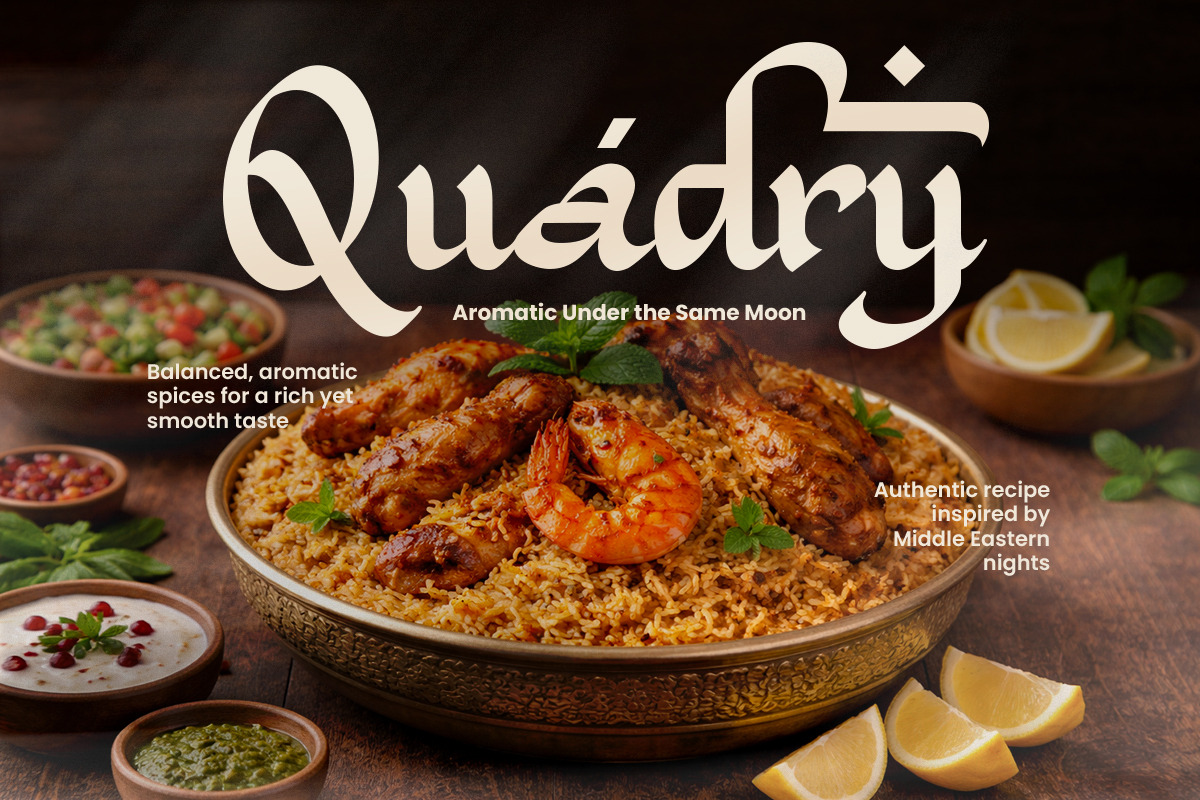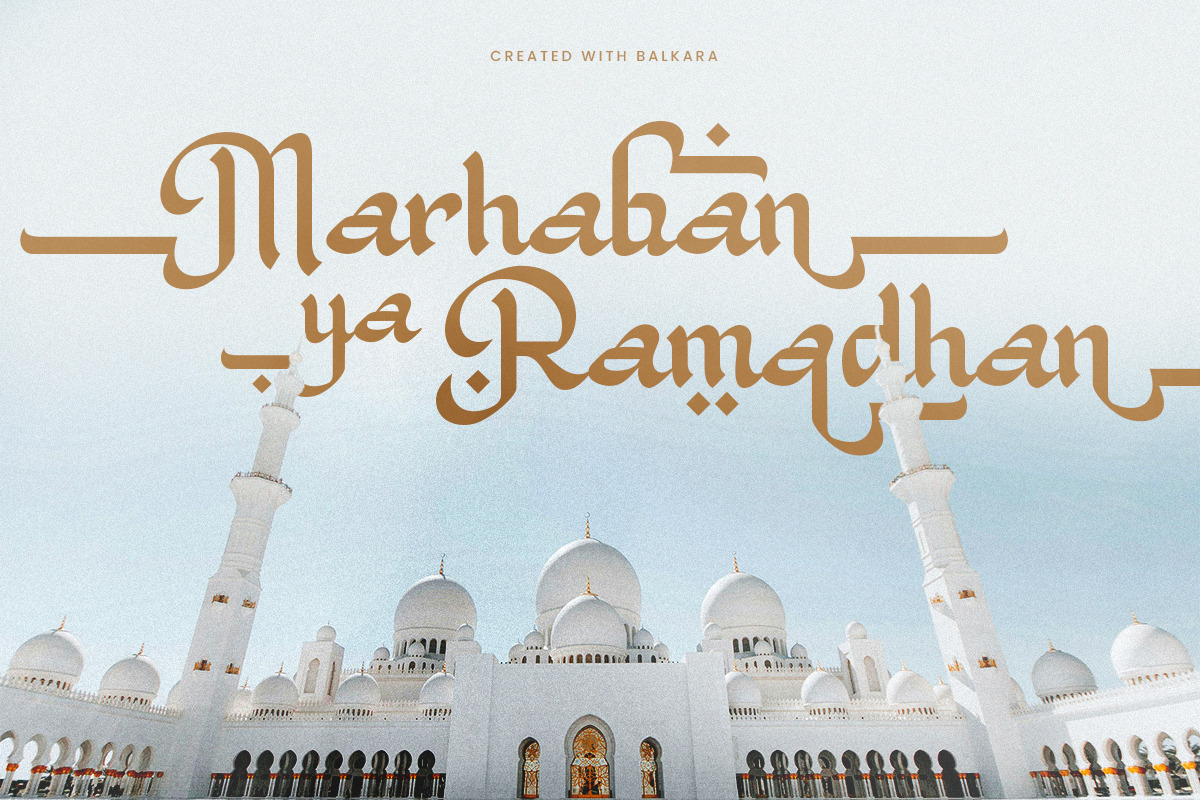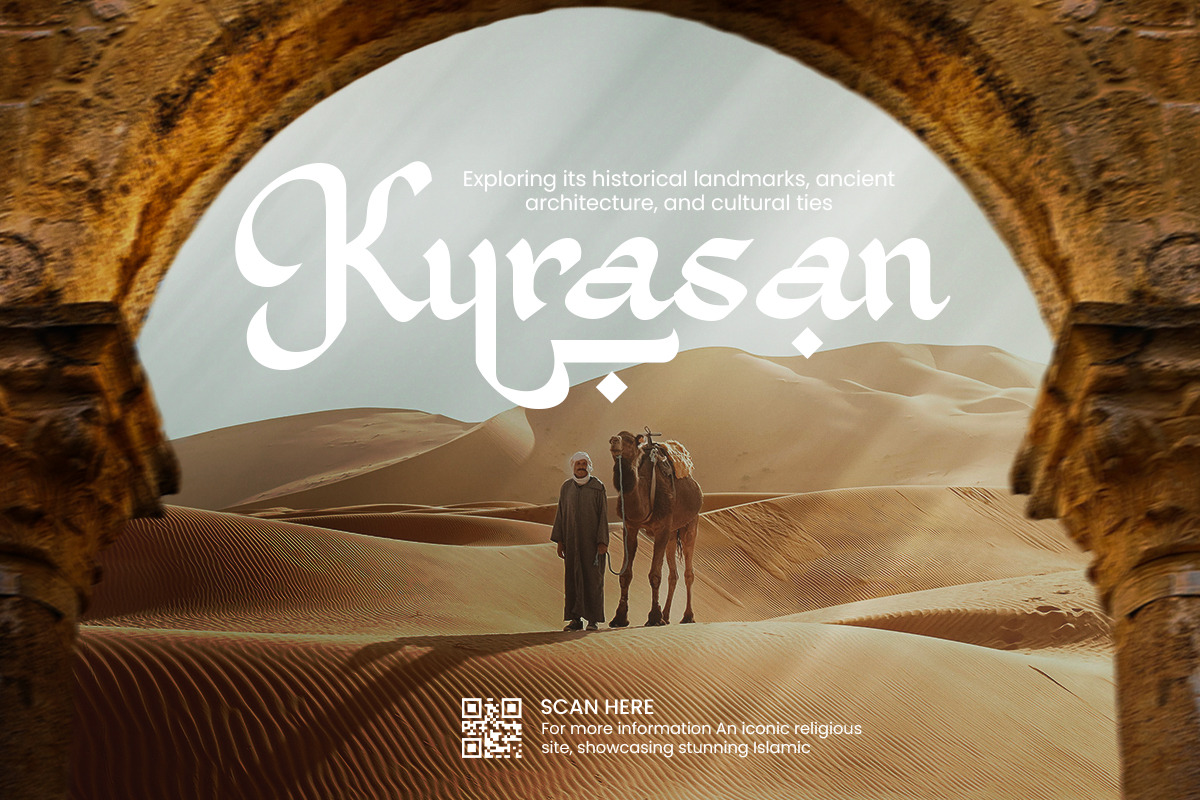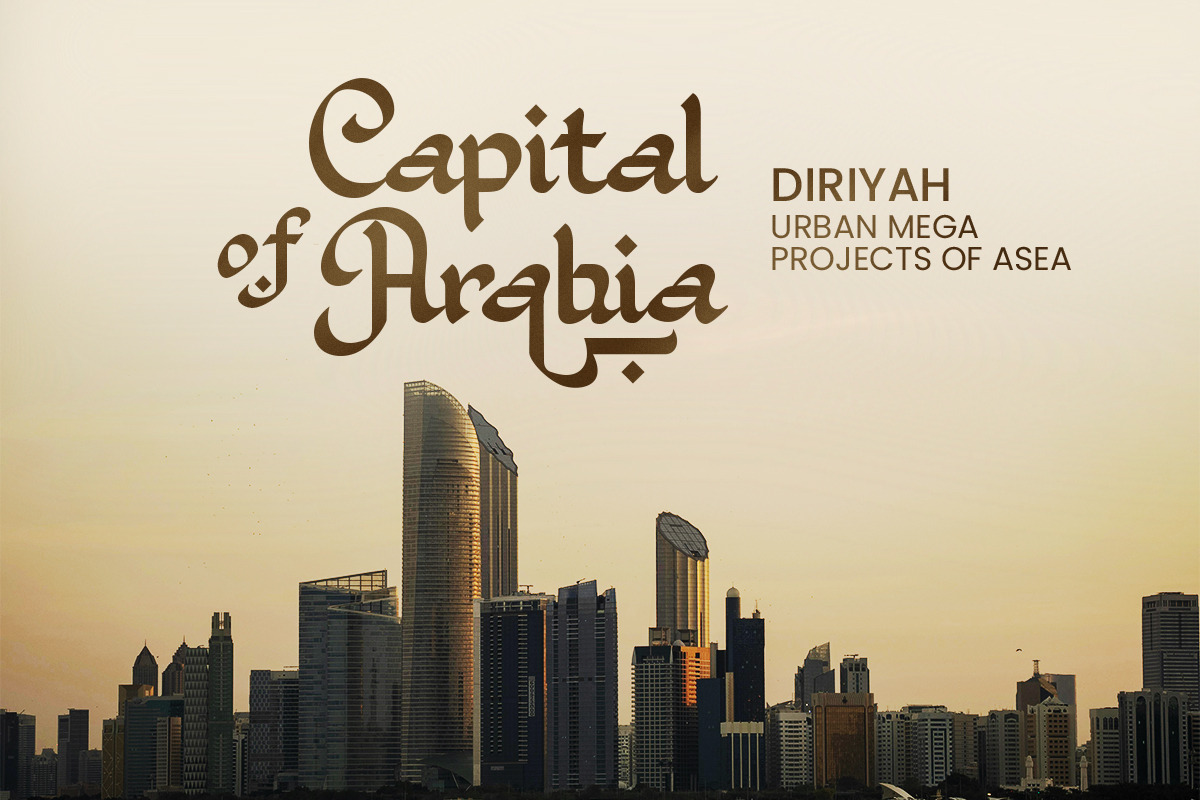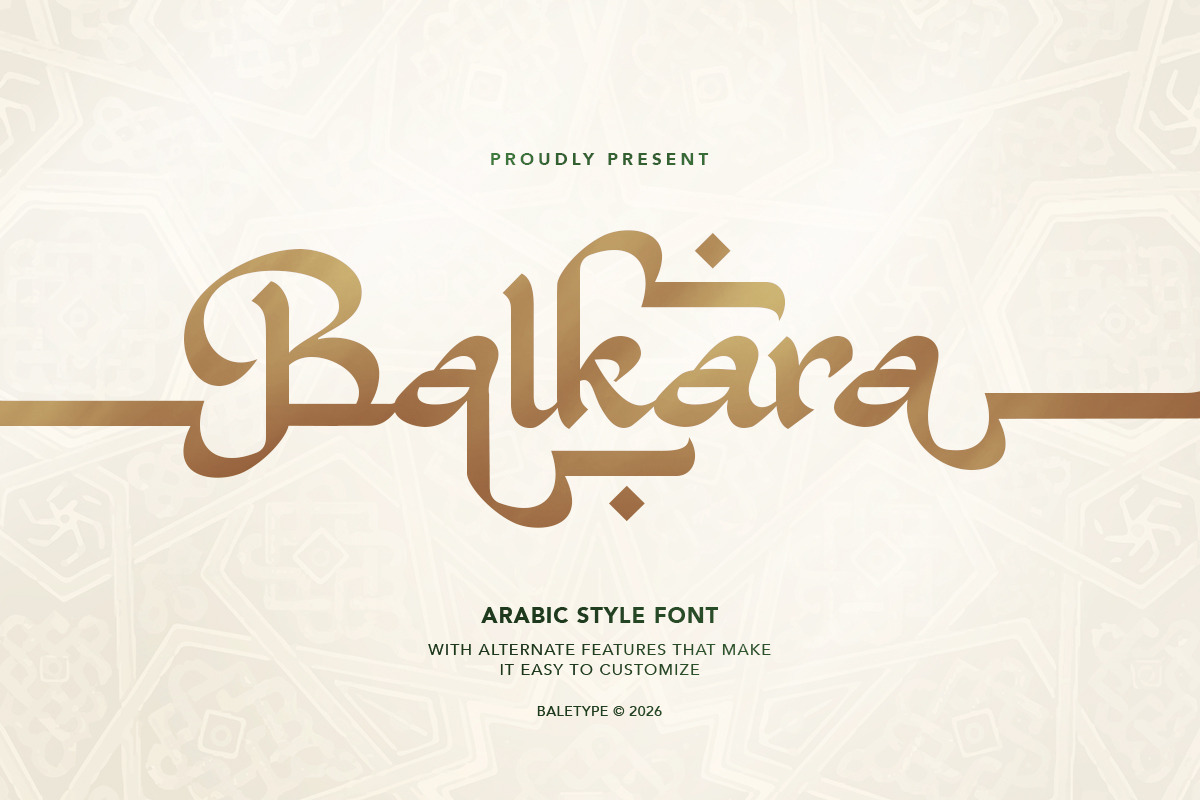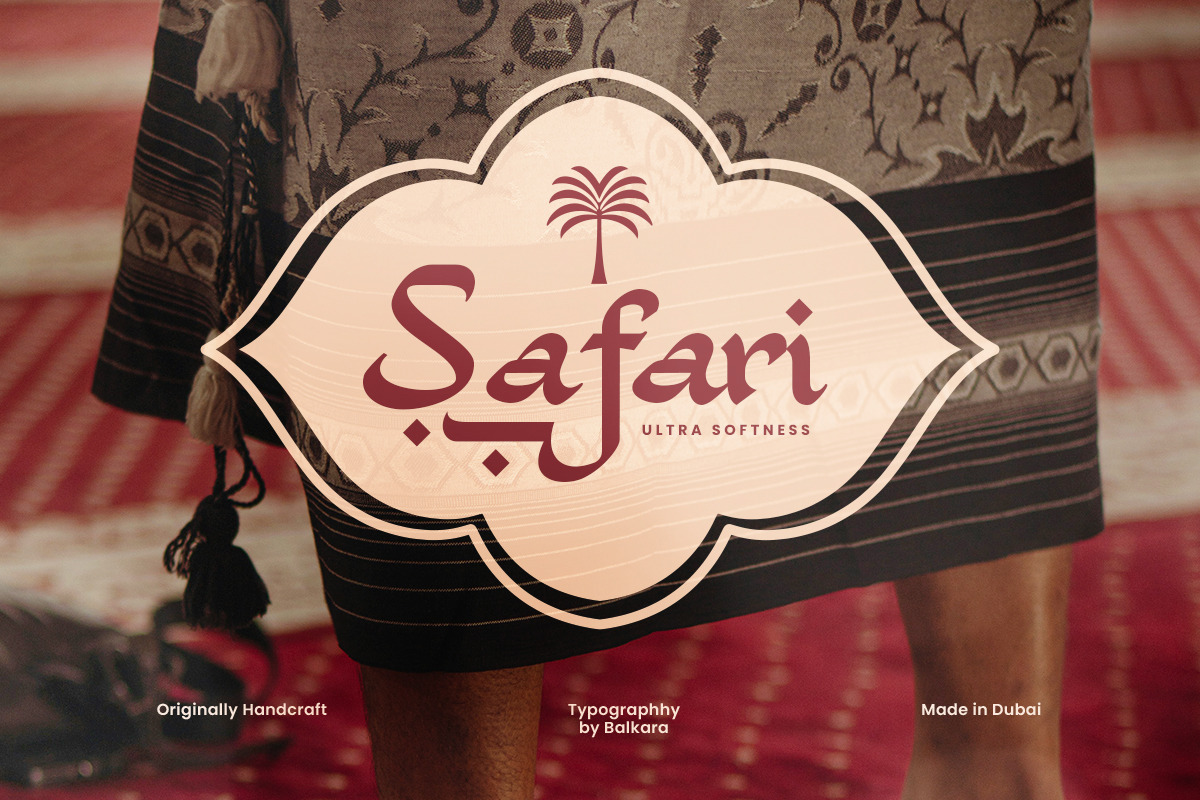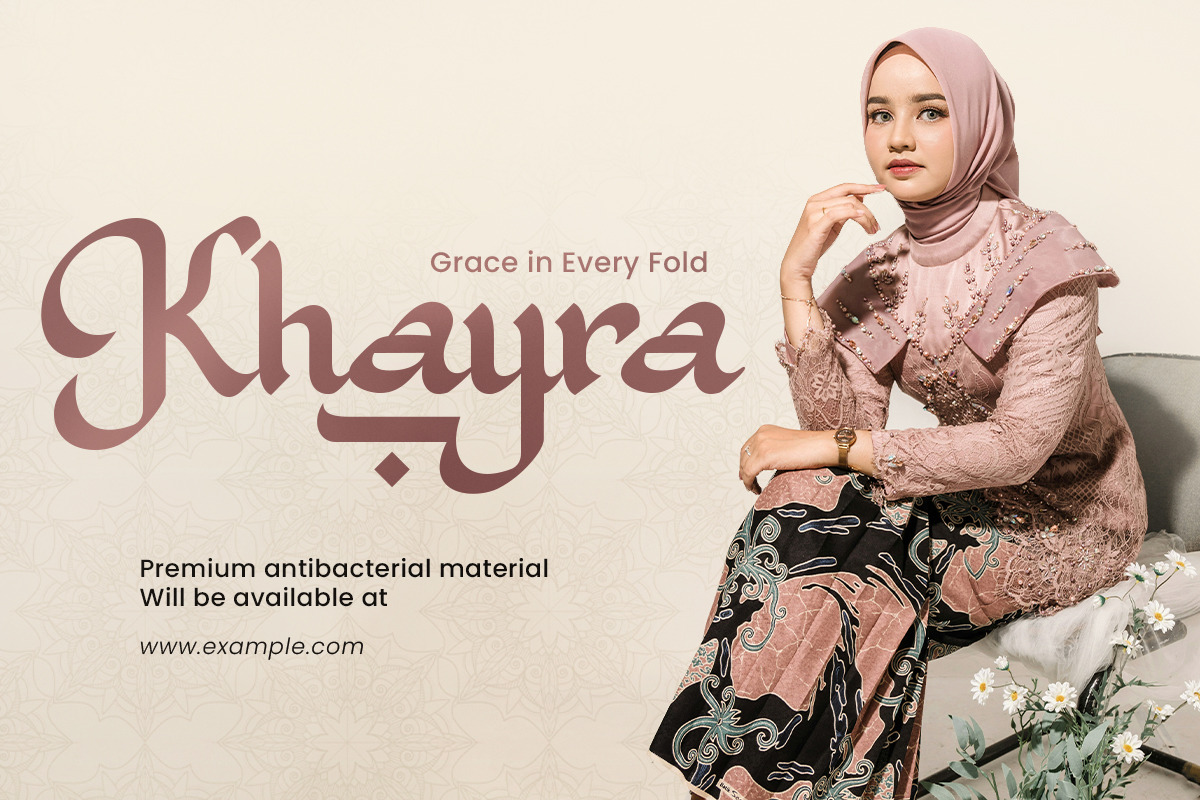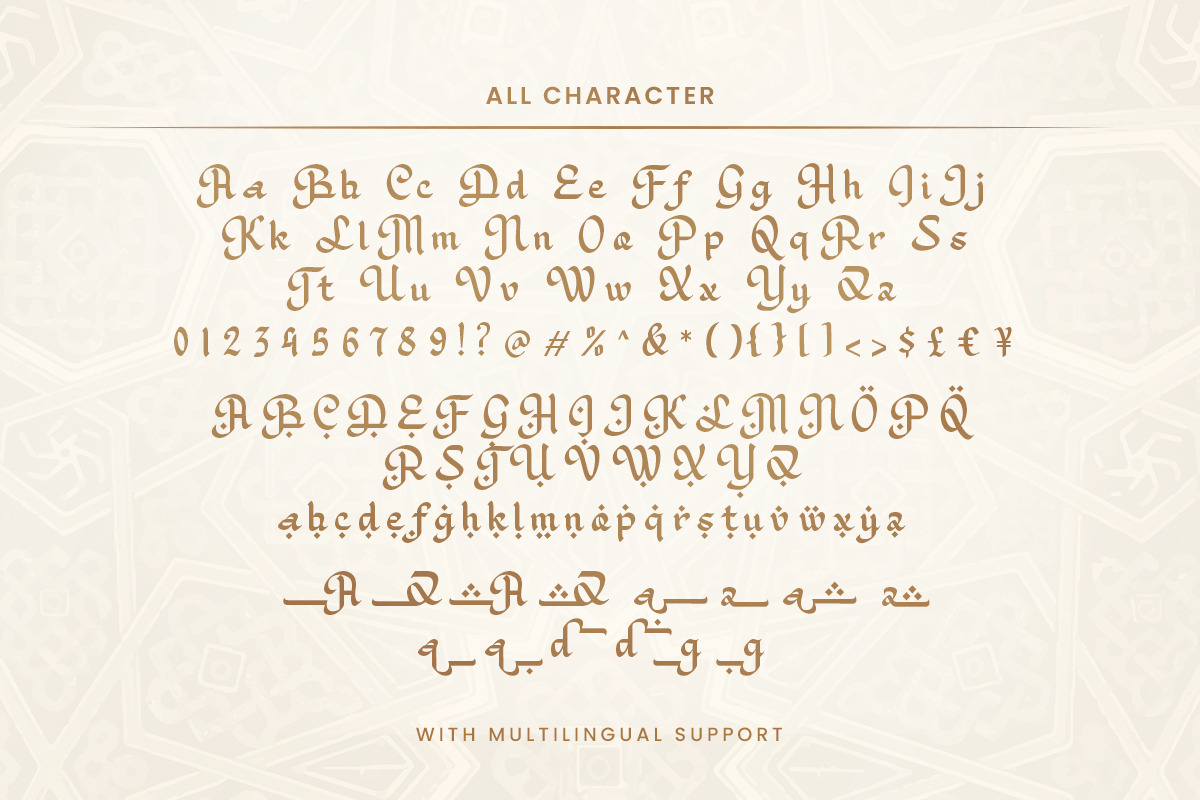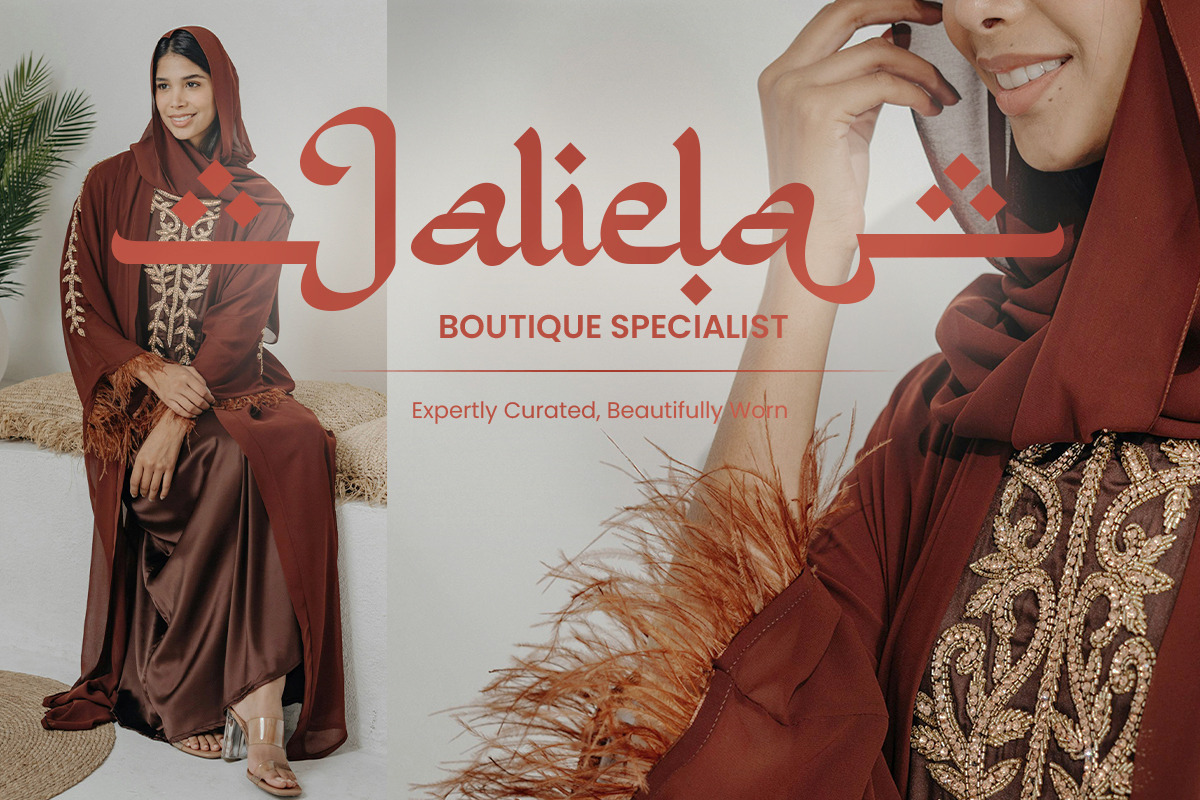
Balkara - Arabic Style Font
Balkara is a stylish bold font inspired by the beauty of the Arabic alphabet, designed with stylish alternates that add elegance and visual interest to your typography. While it captures an authentic Arabian feel, the letterforms remain readable for a wide audience, making it both expressive and practical. Perfect for branding, logo design, wedding invitations, and special occasions such as Ramadan and other Islamic holidays, Balkara brings a distinctive Islamic aesthetic to any project. The font includes numerals and symbols and supports multilingual characters, ensuring flexibility and ease of use across various creative needs.